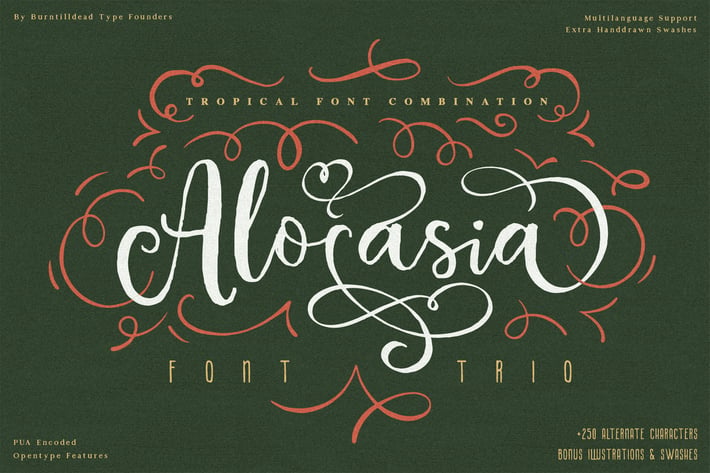
Alocasia-Trio Font Combination
Hello!!! my name is Alocasia. The name of Alocasia took from tropical family plants genus. The idea of using the name is to bring a perfect vibe of tropical, natural & beauty. Our magnum opus is a complete set package (all you need!) for your handcraft and creativity.
Alocasia has 3 subtle style - each style bring different feel but when it joined together they bring a perfect looks. Brush script made it traditional and natural, Sans make it looks simple & serif style being more elegant.
Each style feature full Western Latin character support, formatted in OpenType (OTF & TTF) format and will work on your Machintosh or PC. Alocasia Script powered with +250 alternate characters.
The swashes & illustrations allow you to easily create frames and edges to mimic the best of traditional drawing looks.
Perfect for : elegant branding, wedding stationery, romantic book cover designs, classy packaging, album covers, handwritten quotes, greeting cards, unique social media posts, and so much more.